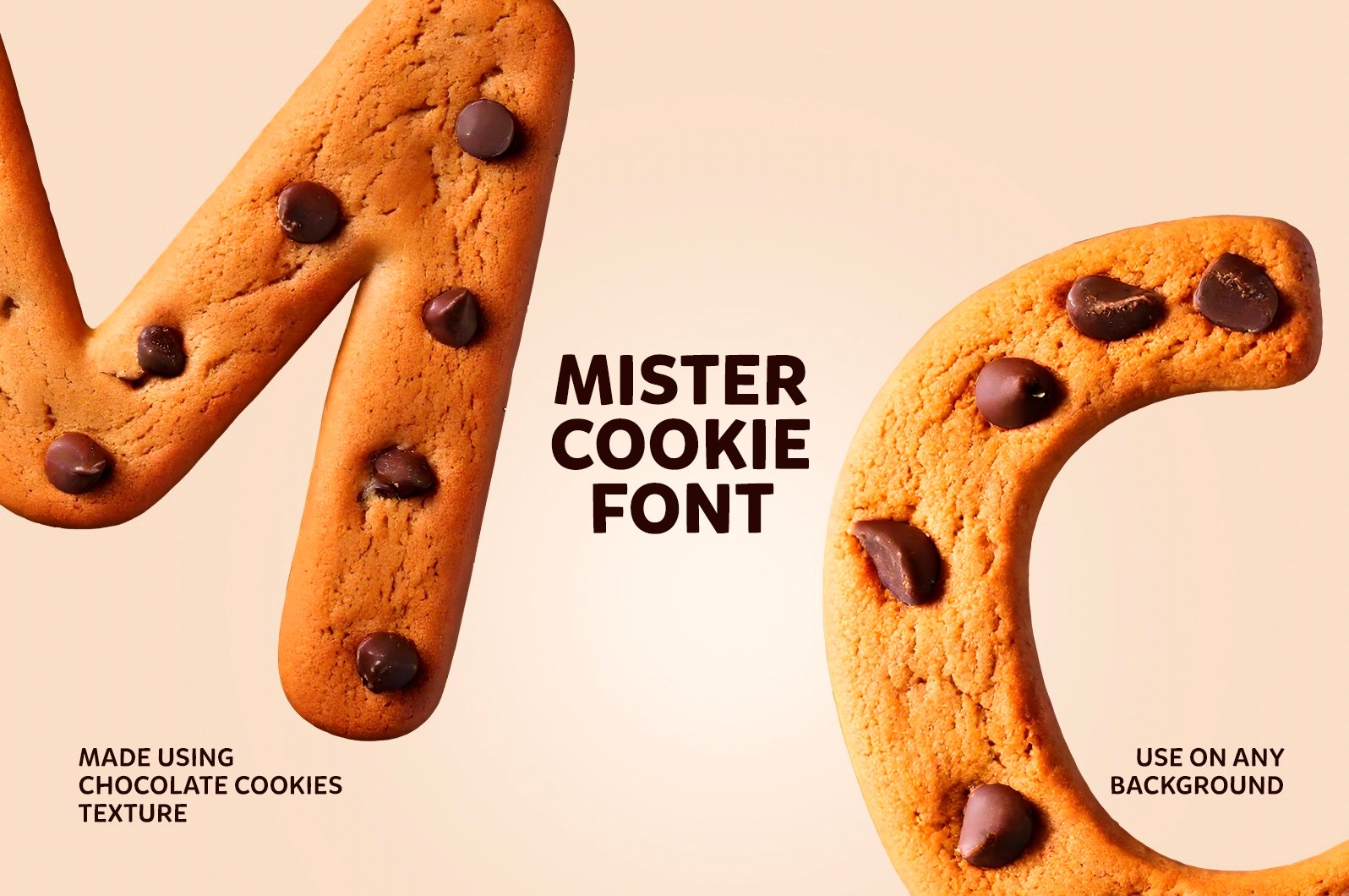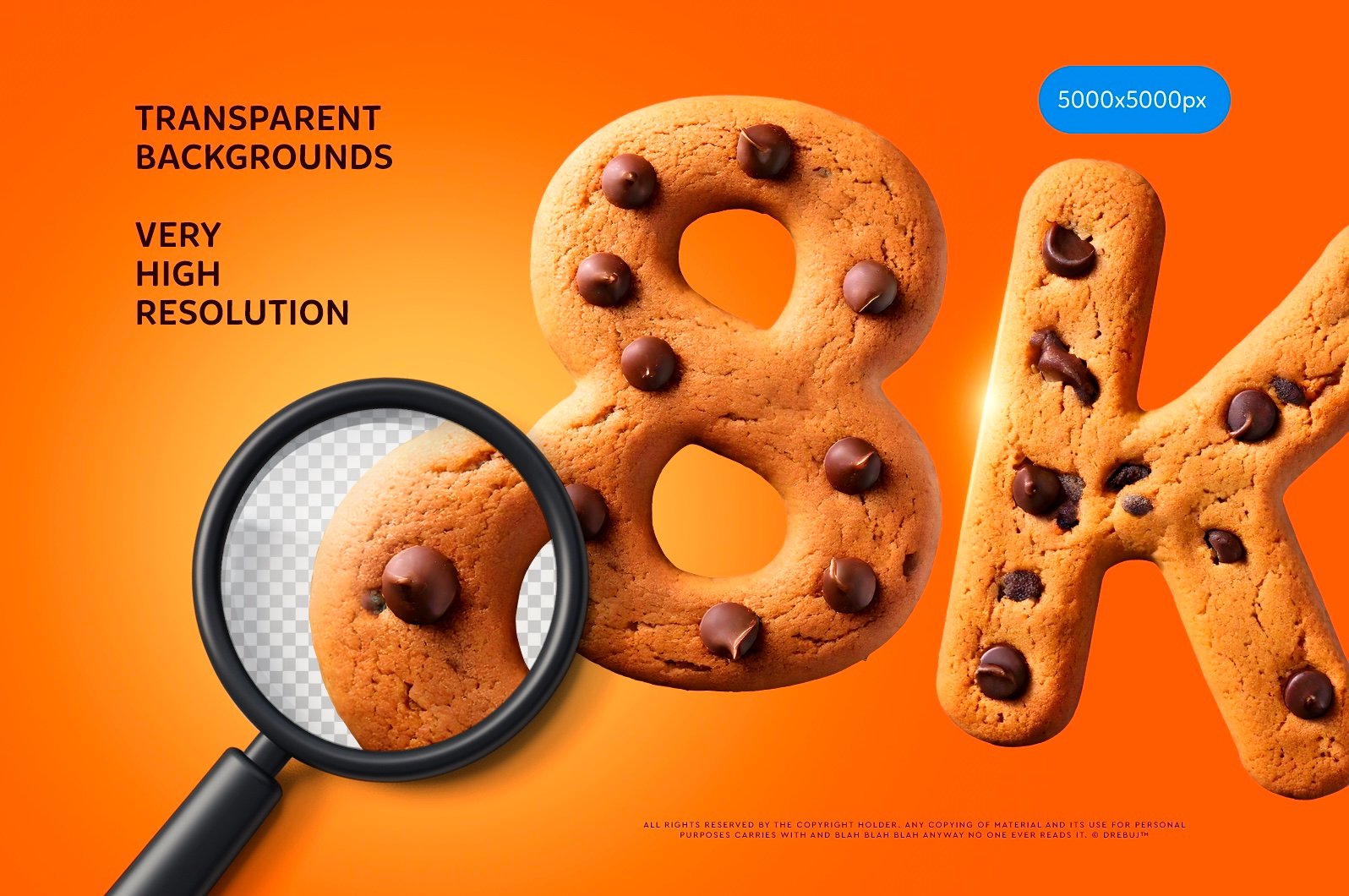
Mister Cookies Font: Geometric 3D Alphabet PNG
An entire alphabet of Chocolate Cookies letters with transparent background.
THIS IS NOT A FONT. This is a very high-quality 3d PNG font of Cookies texture letters.
This collection includes 39 individual PNGs with transparent backgrounds so they can easily be layered with each other or other elements.